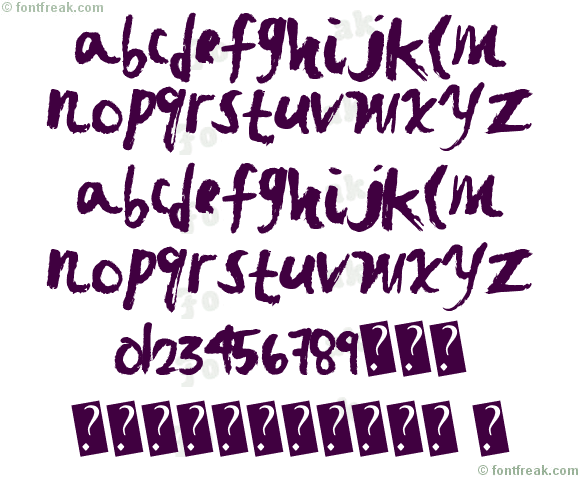
FastBrush
About FastBrush
FastBrush by Xerographer Fonts is a striking handwritten font that captures the essence of quick, dynamic brush strokes. Released in 2012, this font offers an informal yet artistic flair, making it perfect for various creative projects. The visual characteristics of FastBrush include a medium stroke weight and a charming, slightly irregular baseline, which adds to its organic feel. The letters exhibit a moderate contrast, giving it a lively appearance without compromising readability. The spacing is well-balanced, ensuring that the text flows smoothly while maintaining an eye-catching aesthetic.
FastBrush is particularly well-suited for a range of applications. It shines in wedding invitations, where its personal touch adds warmth and affection. Graphic designers can utilize this font for crafting engaging social media graphics, making it ideal for content creators looking to add character to their posts. Restaurant menus can benefit from FastBrush's inviting style, encouraging patrons to explore a delightful dining experience. Additionally, it can be a fantastic choice for posters and flyers, where an informal yet artistic vibe is desired, such as in music events or art shows.
The target audience for FastBrush includes graphic designers, small business owners, and content creators who are in search of a font that embodies creativity and spontaneity. This font offers a unique balance of playfulness and professionalism, making it a versatile addition to any designer's toolkit.
What sets FastBrush apart is its ability to convey a sense of movement and emotion, making it more than just a typeface; it's a creative tool that inspires. For those interested in enhancing their projects with a lively touch, the FastBrush font free download is an excellent opportunity to explore its potential.